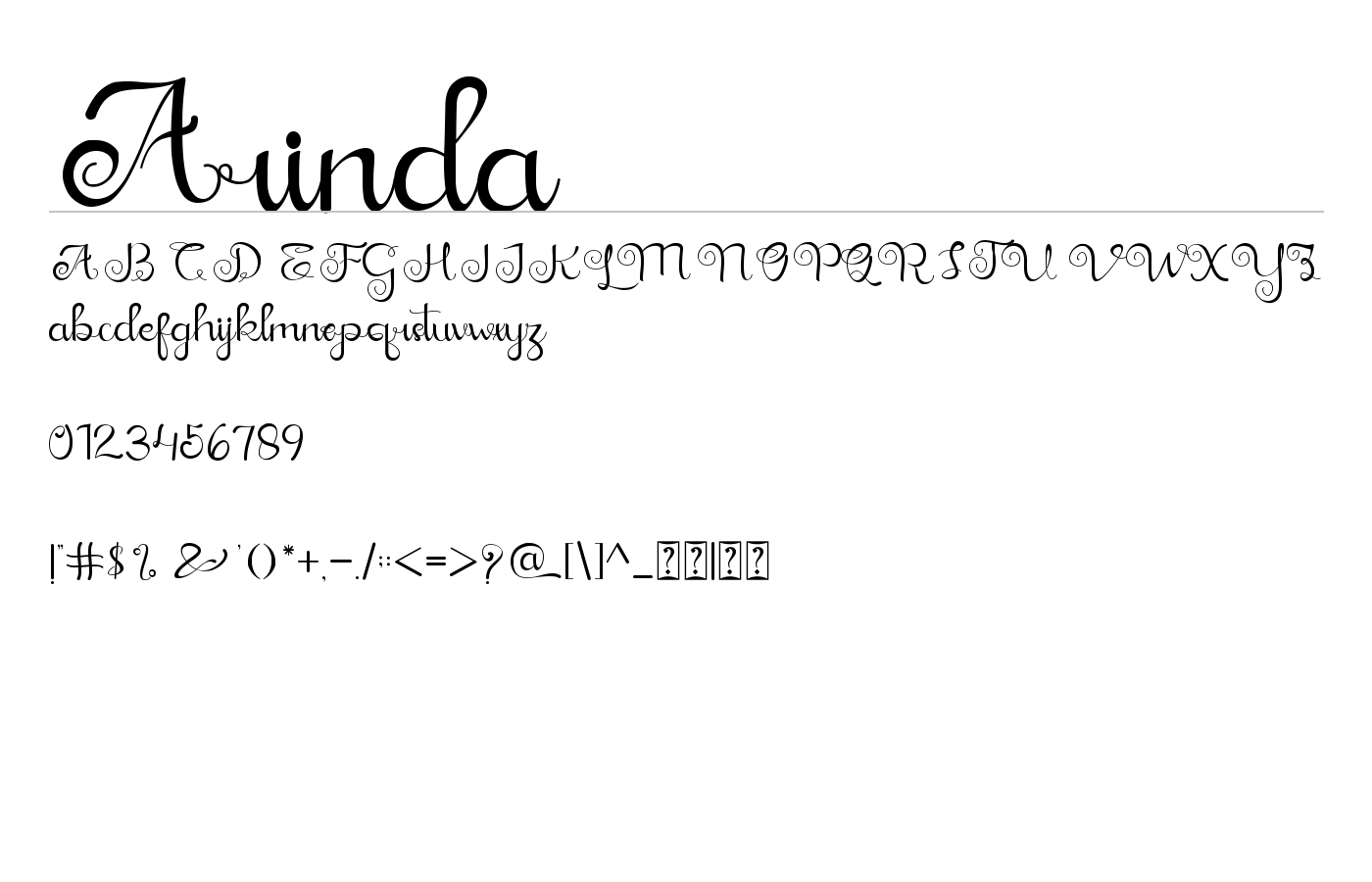
Arinda is a delicate and ornate script font with elegant, flowing letterforms that feature intricate curls and swashes, giving it a whimsical yet refined feel. Its light weight and high x-height make it ideal for decorative uses where a graceful, artistic touch is desired, such as wedding invitations, branding for luxury or creative businesses, and stylish headlines. This font’s intricate design and playful personality make it perfect for projects seeking a sophisticated yet charming appearance.
Arinda Font
About Arinda Font